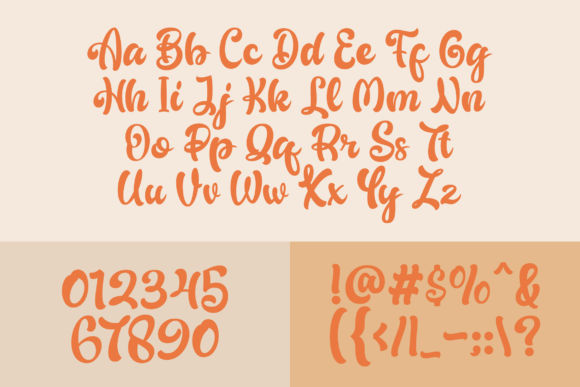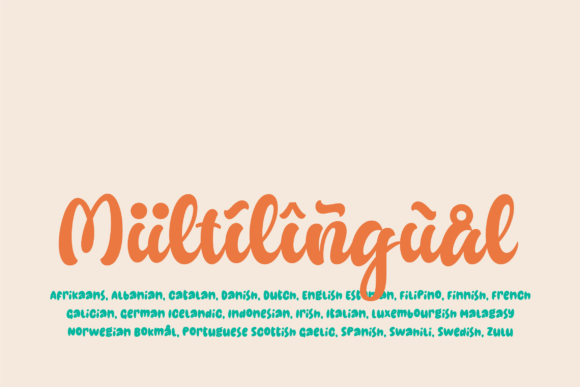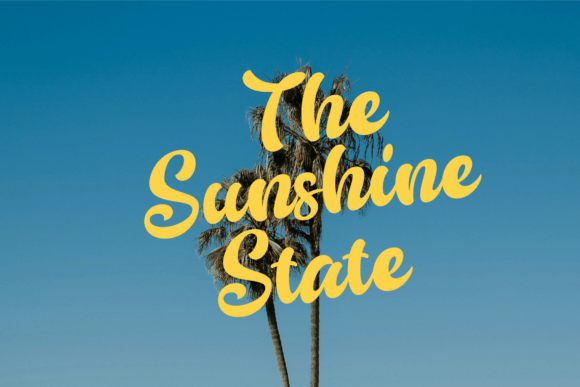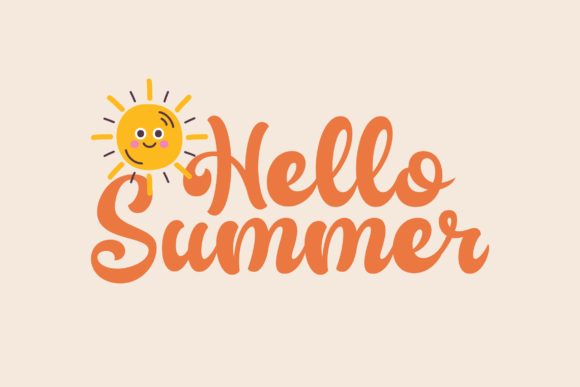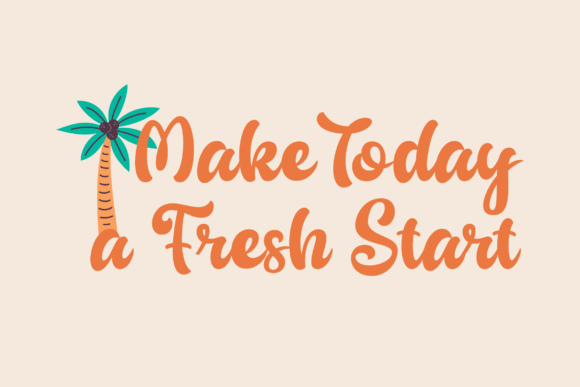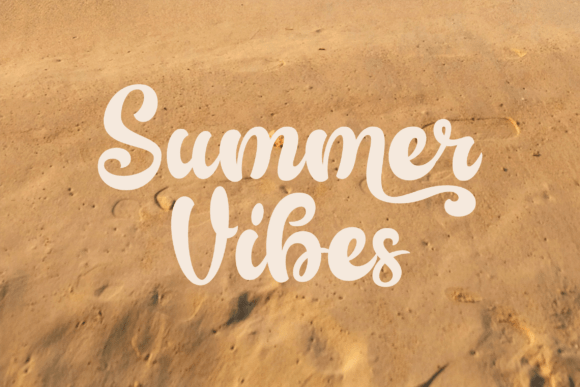
Introducing Bandusi Font: The Playful Summer Script Font You Need
Are you tired of using the same old fonts in your designs? Do you want to add a touch of sunshine and warmth to your projects? Look no further than Bandusi, a playful summer script font that’s perfect for fun and vibrant designs. In this article, we’ll dive into the features and benefits of Bandusi, and explore how it can elevate your designs to the next level.
What is Bandusi Font?
Bandusi is a cheerful hand-lettered script font that’s inspired by sunny days and tropical vibes. Its smooth, bouncy strokes and flowing curves give it a friendly and approachable personality, making it perfect for designers, illustrators, and creative entrepreneurs who want to add a happy, handmade touch to their work.
Key Features of Bandusi Font
• Playful and cheerful design: Bandusi’s hand-lettered style is perfect for fun and vibrant projects that require a touch of personality.
• Smooth and bouncy strokes: The font’s smooth strokes give it a fluid and dynamic feel that’s perfect for designs that need to pop.
• Flowing curves: Bandusi’s flowing curves add a touch of elegance and sophistication to any design.
• Handmade feel: The font’s handmade feel gives it a unique and authentic personality that’s perfect for designers who want to add a personal touch to their work.
Use Cases for Bandusi Font
Bandusi is a versatile font that can be used in a variety of projects, including:
• T-shirt designs: Add a touch of fun and personality to your t-shirt designs with Bandusi’s playful and cheerful style.
• Kids’ branding: Bandusi’s friendly and approachable personality makes it perfect for kids’ branding projects, such as logos, packaging, and marketing materials.
• Party invitations: Create fun and vibrant party invitations with Bandusi’s smooth and bouncy strokes.
• Product packaging: Add a touch of warmth and joy to your product packaging with Bandusi’s flowing curves and handmade feel.
Benefits of Using Bandusi Font
Using Bandusi font in your designs can have a number of benefits, including:
• Adding a touch of personality: Bandusi’s unique and authentic personality can help your designs stand out from the crowd.
• Creating a fun and vibrant feel: The font’s playful and cheerful design can help create a fun and vibrant feel in your designs.
• Conveying warmth and joy: Bandusi’s flowing curves and handmade feel can help convey warmth and joy in your designs.
Tips for Using Bandusi Font
Here are a few tips for using Bandusi font in your designs:
• Use it in large sizes: Bandusi font looks best in large sizes, so try using it for headlines or titles.
• Experiment with colors: Bandusi font looks great in bright and bold colors, so don’t be afraid to experiment with different color schemes.
• Pair it with other fonts: Bandusi font pairs well with other fonts, so try pairing it with a sans-serif font for a fun and modern look.
In conclusion, Bandusi font is a playful summer script font that’s perfect for fun and vibrant designs. Its cheerful hand-lettered style, smooth and bouncy strokes, and flowing curves make it a great choice for designers, illustrators, and creative entrepreneurs who want to add a happy, handmade touch to their work. Whether you’re creating t-shirt designs, kids’ branding, party invitations, or product packaging, Bandusi font is sure to bring sunshine and warmth to your designs.